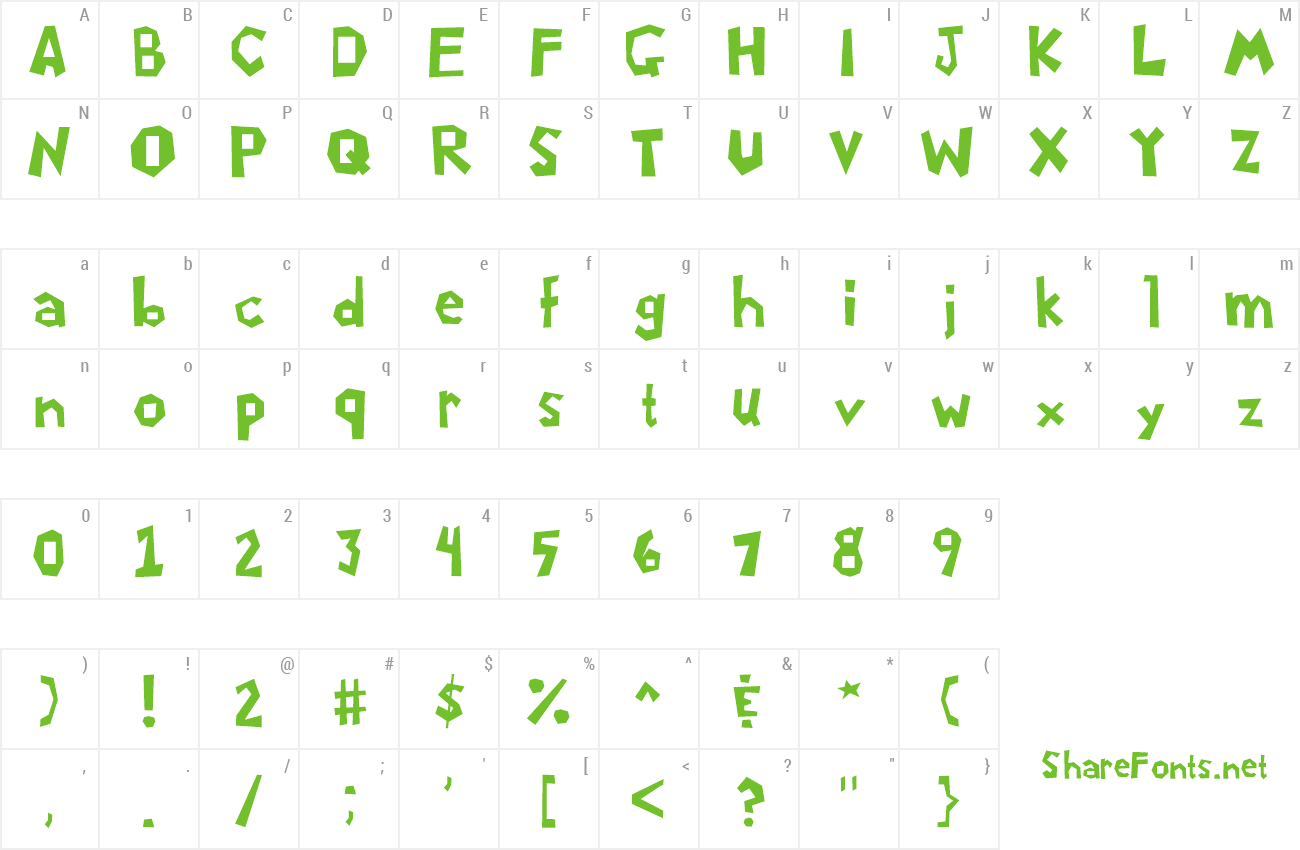
The font mario luigi is also perfect for branding projects, homeware. Pin on pokken tournament gameplay
Mario and luigi font generator. Fonts in use text generator. If you recognize the font from the samples posted here don't be shy and help a fellow designer. This is the font used in the nds game mario.
Mario vs luigi meme generator the fastest meme generator on the planet. The lettering for the super mario logo is very similar to a font named super mario 256 by fsuarez913. Discover and customize the font super mario bros.
Mario and luigi font details. Mario 8 bit font generator. Use these free super mario themed fonts with luigi, princess toadstool, and more to generate your designs, for free!
Mario and luigi icons font. Mario and luigi font by 24hourfonts. The mario and luigi font contains 222 beautifully designed characters.
Fonts are designed to look like all the mario video games. About the font mario luigi. Many programs display new fonts only after restarting.
Any other font on your device can also be used. New super mario bros wii font. Mario and luigi partners in time fonts?
Click here to download this font The fonts in use section features posts about fonts used in logos, films, tv shows, video games, books and more; Mario and luigi has 1 style and free for personal use license
Font meme is a fonts & typography resource. Discover and customize the font super mario 256 and other similar fonts, ready to share in facebook and twitter. Mario luigi is free for personal use only.
Mario luigi is the perfect font for all your fun designs. Download free super mario bros. This is the font used in the nds game mario kart ds.
Imgflip supports all web fonts and windows/mac fonts including bold and italic, if they are installed on your device. Super mario 256 suggested by tomthumb #2. Mario luigi 2 by luigifreak101.
Download free mario and luigi font by www.davidpustansky.com from fontsly.com. Easily add text to images or memes. In the game, players control luigi as he explores a haunted mansion, search for mario and deal with ghosts that lie within its rooms.